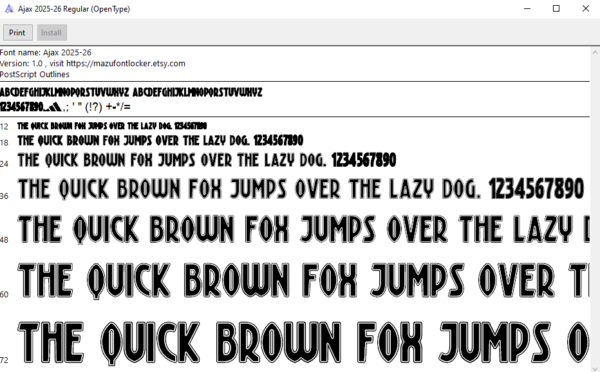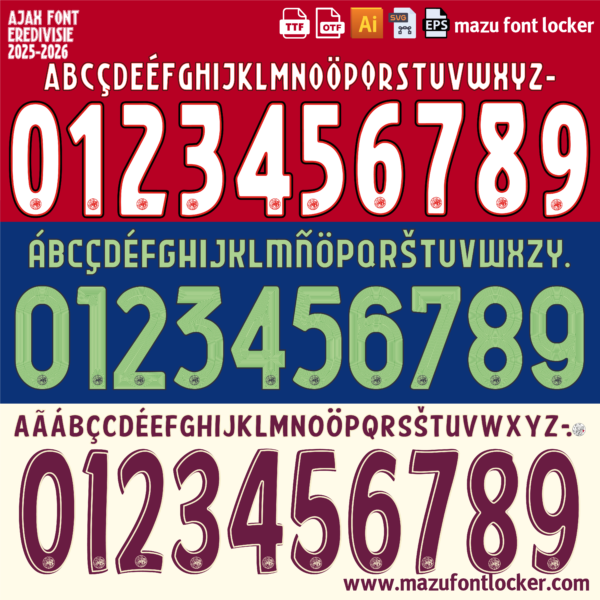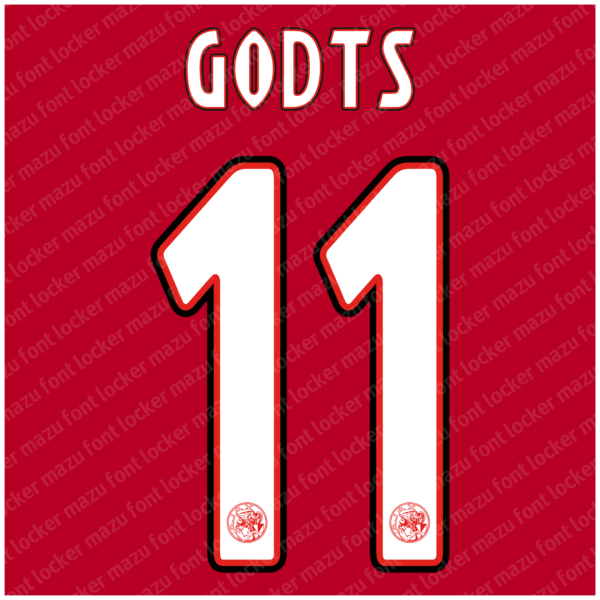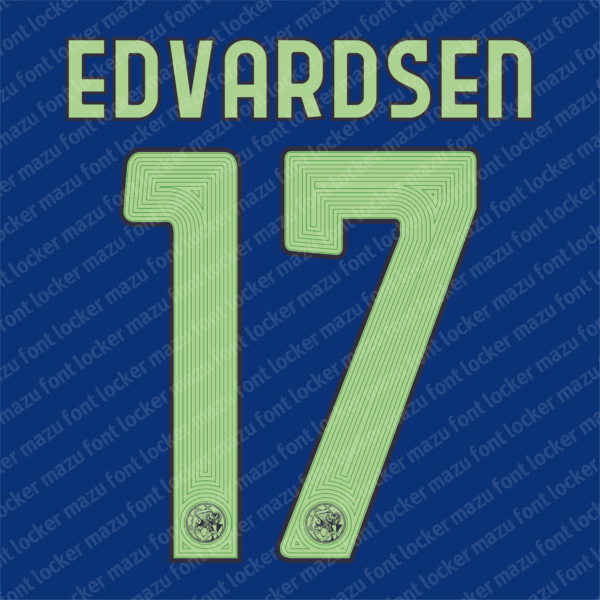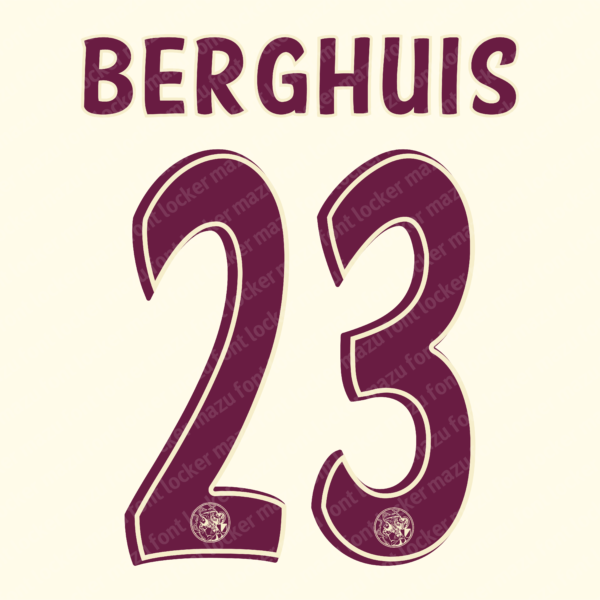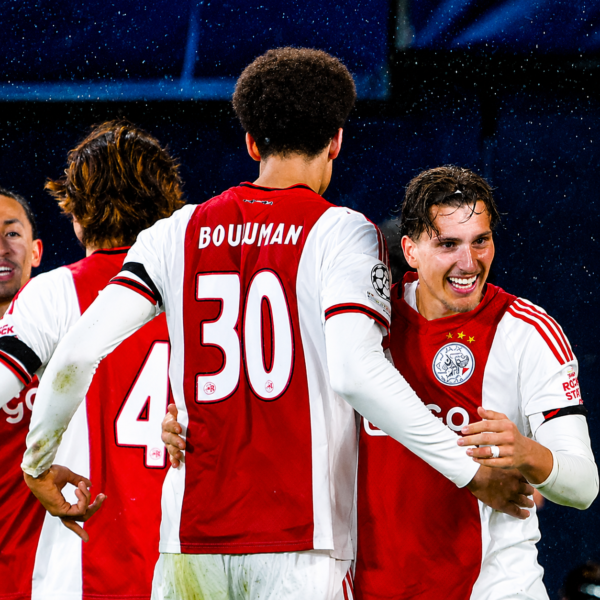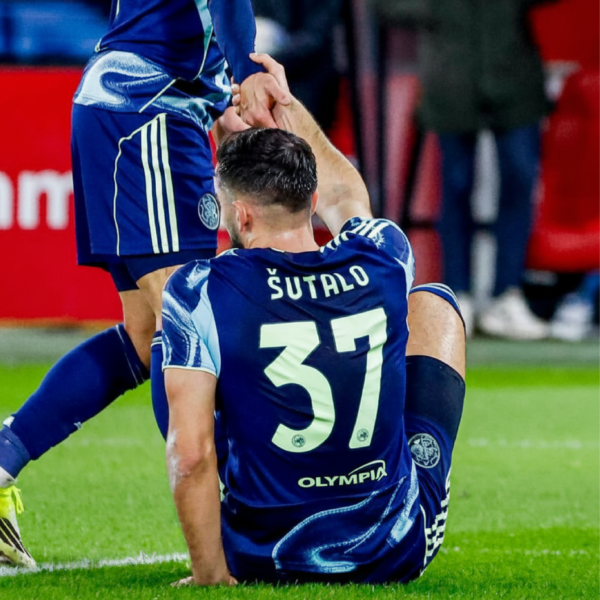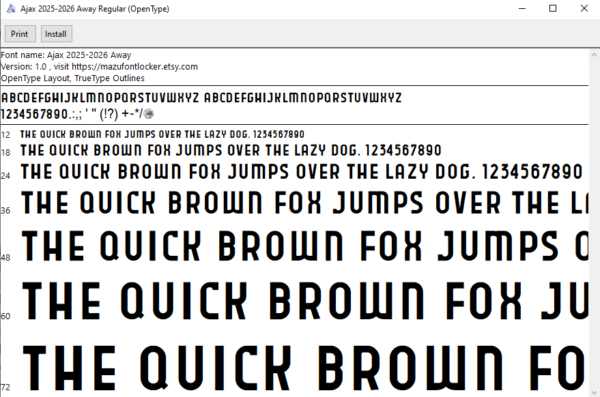
Ajax Amsterdam 2025-2026 Font – Fearless Godenzonen Dominance
Download the Ajax Amsterdam 2025-2026 Font and experience the pure attacking flair and rich heritage of one of Europe’s most iconic clubs. This premium Ajax Amsterdam 2025-2026 Font perfectly captures the bold, elegant typography worn during Ajax’s dynamic 2025-2026 season, embodying the same speed, creativity, and total football philosophy that defines the club.
Every letter and number has been meticulously designed with sharp precision to reflect the vibrant red and white identity, youthful energy, and fearless spirit of De Godenzonen. Whether you’re creating matchday posters, social media graphics, custom jerseys, fan merchandise, or professional designs, the Ajax Amsterdam 2025-2026 Font delivers authentic club power and striking visual impact that stands out instantly.
High-quality, fully vectorized, and perfectly scalable, this font is ideal for both digital and print projects. Bring the legendary Ajax DNA into your work with this must-have football font and celebrate the continued legacy of Amsterdam’s greatest club.
The Ajax Amsterdam 2025-2026 Font is a premium, high-precision football jersey font vector meticulously engineered to capture the fearless energy, explosive passion, and electrifying identity of Ajax Amsterdam’s legendary 2025-2026 campaign.
Inspired by the mighty Godenzonen and their iconic, high-intensity performances throughout the unforgettable 2025-2026 season, this font unleashes a bold, majestic, and devastatingly powerful presence that radiates unbreakable Ajax pride, rich heritage, and unstoppable attacking brilliance. Every letter and number has been painstakingly recreated with razor-sharp precision to embody the vibrant red and white identity, relentless total football mentality, and glorious legacy that makes Ajax Amsterdam one of the most respected and feared forces in European football.
Feel the fire of the Johan Cruyff Arena. Ignite the passion. Unleash the legendary spirit of the Godenzonen and the unstoppable power of Ajax Amsterdam 2025-2026.
• Authentic 2025-2026 Ajax Amsterdam jersey lettering style
The authentic lettering style helps recreate the classic look of the Ajax Amsterdam 2025-2026 kit with professional accuracy.
Unlike generic jersey fonts, this premium set is crafted with obsessive focus on authenticity and unmatched precision. Every detail is meticulously recreated from the original match lettering style used by Ajax Amsterdam during the legendary 2025-2026 season, helping designers and collectors create ultra-realistic football shirt designs that radiate pure Godenzonen greatness.